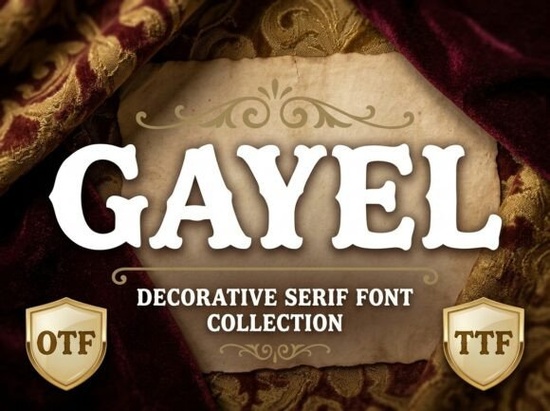
If you're looking for a bold, eye-catching display font that stands out on packaging, logos, or social media graphics without feeling overdesigned or dated you’ll want to take a closer look at the Gayel Font. It’s not meant for body text or long paragraphs. Instead, it’s built for moments where a single word or phrase needs to command attention: a wedding monogram, a boutique product label, or the headline on a handmade greeting card.
What makes Gayel Font different from other decorative fonts?
Many decorative fonts rely on heavy embellishment swirls, shadows, or exaggerated serifs that can feel busy or hard to scale. Gayel takes a more intentional approach. Its letters have strong, confident shapes with subtle artistic details: a slight taper here, an unexpected curve there, balanced weight distribution across all caps. Because it’s uppercase-only, each character carries visual weight and consistency no awkward lowercase mixing to disrupt rhythm. That makes it especially useful if you’re designing for print-on-demand services where clean, high-contrast files matter.
Where does Gayel Font work best?
Think of it as your go-to when you need impact without clutter. Here are a few real-world uses:
- Wedding stationery: Pair it with a delicate script for contrast like using Gayel for “Mr & Mrs” above elegant cursive names. It fits right in with other popular options like the Infinity Wedding Monogram Font, especially for modern or minimalist ceremonies.
- Small business branding: A coffee roaster might use it for “SINGLE ORIGIN” on a bag label; a ceramicist could feature it on a stamp or packaging sticker. Its polished finish keeps things professional, even when used playfully.
- Digital craft projects: For SVG cut files or printable wall art, Gayel scales cleanly at any size no pixelation or thin-line breakage, thanks to its sturdy outlines.
What won’t Gayel Font do?
It won’t replace a versatile sans-serif for website navigation or app interfaces. It doesn’t include numbers, punctuation, or symbols beyond basic ones (like ! ? . –). And as noted in the product details, it’s all-caps only so don’t expect lowercase letters or small caps. That’s by design, not oversight. If your project needs mixed-case flexibility, this isn’t the font for you but if you’re after striking, intentional emphasis? It delivers.
How to use it without overdoing it
Less is more with display fonts like this. Try these simple guidelines:
- Use it for one line only per layout never more than five words if possible.
- Pair it with a neutral, highly legible font (like Montserrat, Lato, or even system fonts) for supporting text.
- Leave generous space around it don’t crowd it with icons or dense backgrounds.
- Test how it looks printed at actual size before finalizing packaging or signage.
One last note: if you’ve tried other decorative fonts that looked great on screen but lost clarity when laser-cut or printed on textured paper, Gayel’s clean vector structure helps avoid that issue. Its outlines are smooth and consistent not overly thin or fragile so it holds up across mediums.